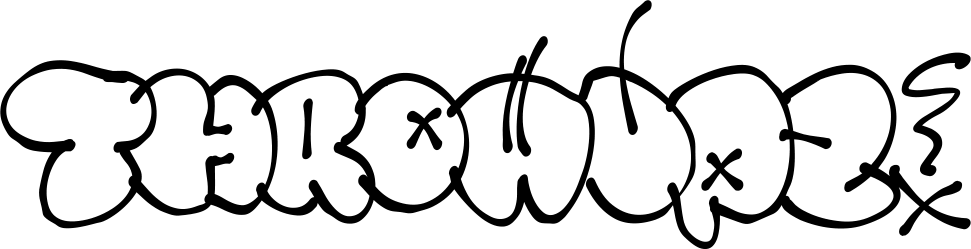
Throwupz Font
Throwupz font allows you to make the layout of your dreams, without spending a buck. This graffiti font with plump and puffy letters will be great for graffiti art, banners, kids’ programs, and so on. Capital and small letters are designed differently, download it now and let the magic happen. If you need more of this category, check our website.